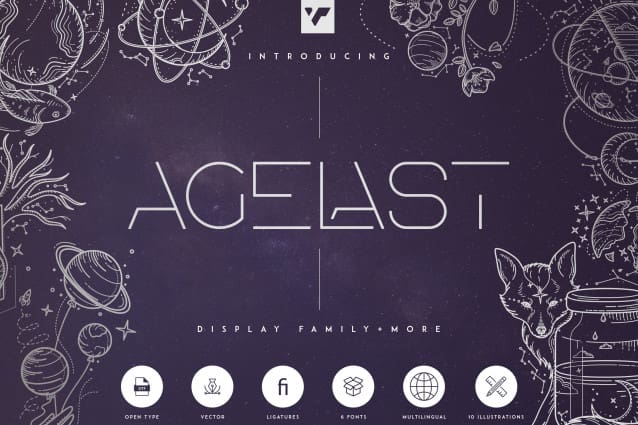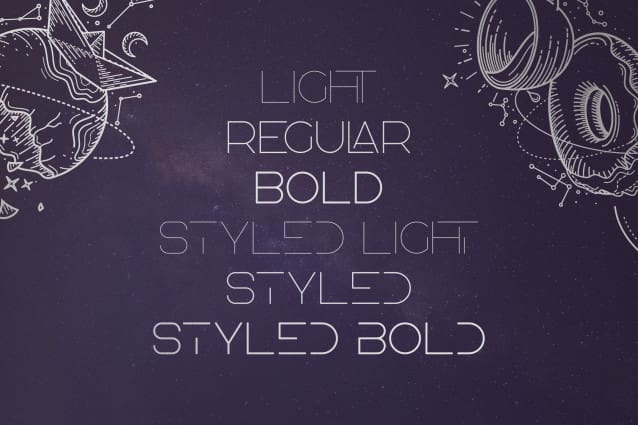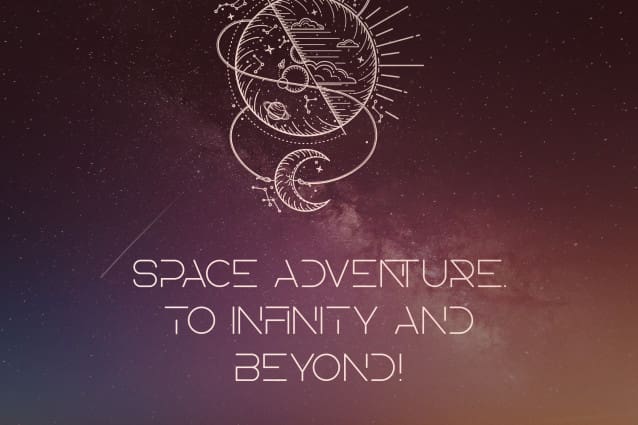
Agelast Sans Font
Agelast Sans Font is clean, futuristic typeface with 6 fonts, 10 breathtaking illustrations, 71 photoshop styles and multilingual support. It’s a very versatile font that works great in large and small sizes.
Agelast is perfect for branding projects, home-ware designs, product packaging, magazine headers – or simply as a stylish text overlay to any background image.